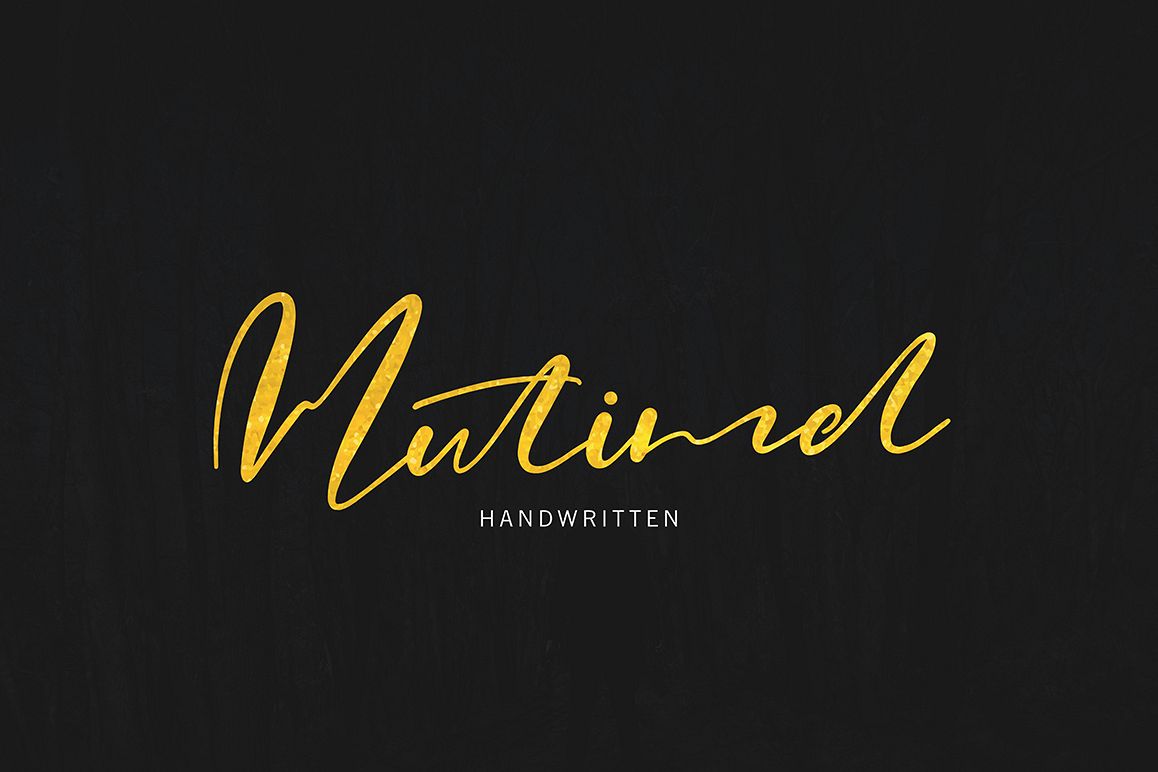
Mutimel
Mutimel script font with modern style, this font will perfect for many different project ex: quotes, logo, blog header, poster, banding, fashion, apparel, letter, invitation, stationery, etc...